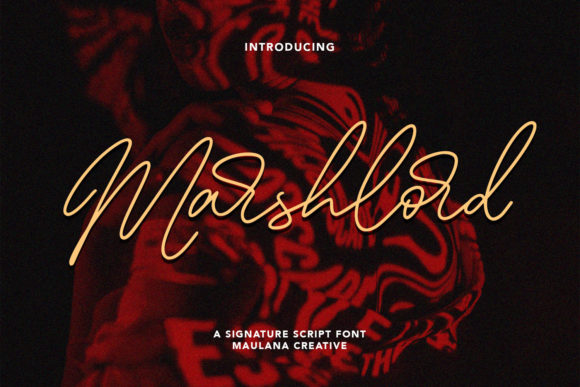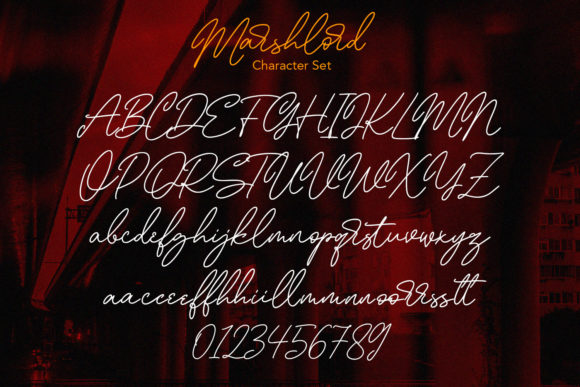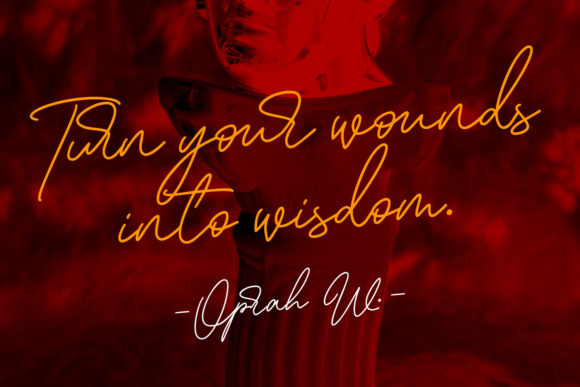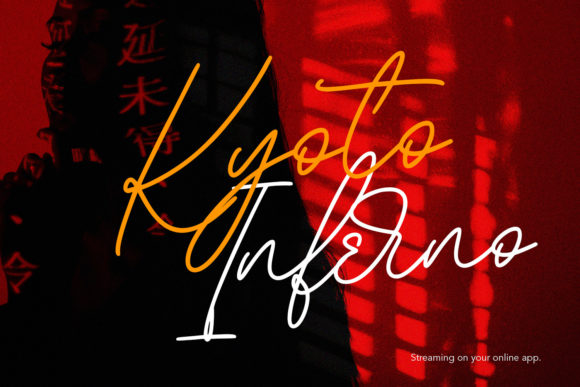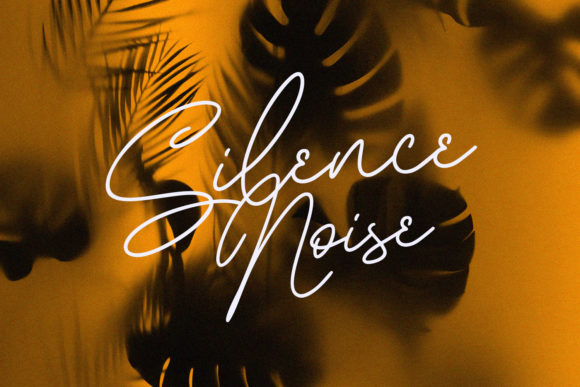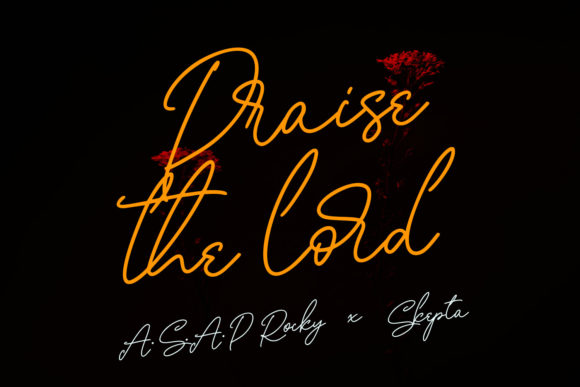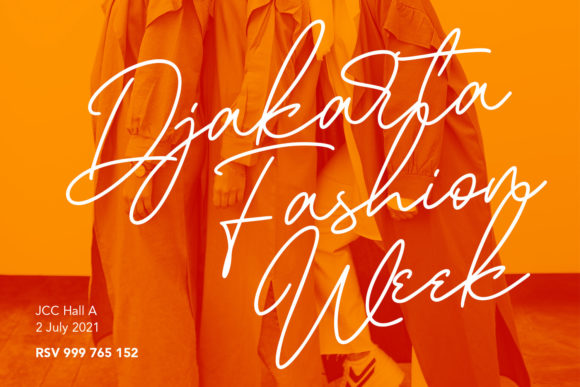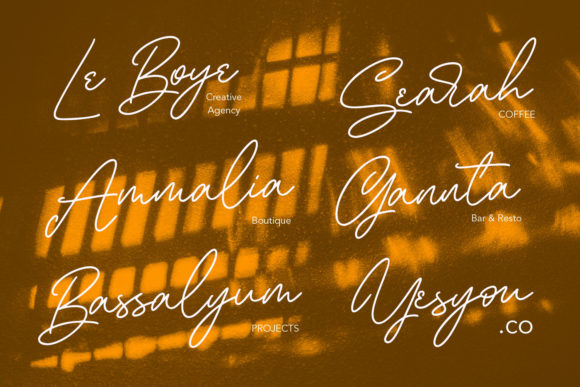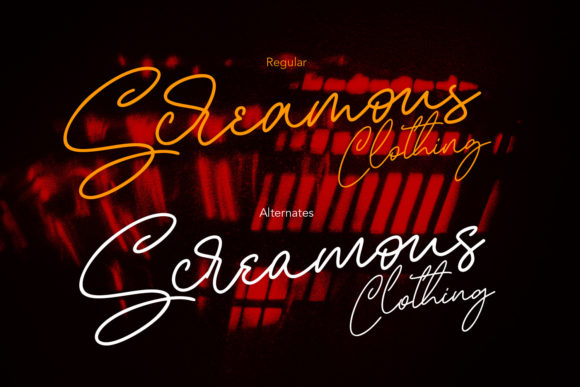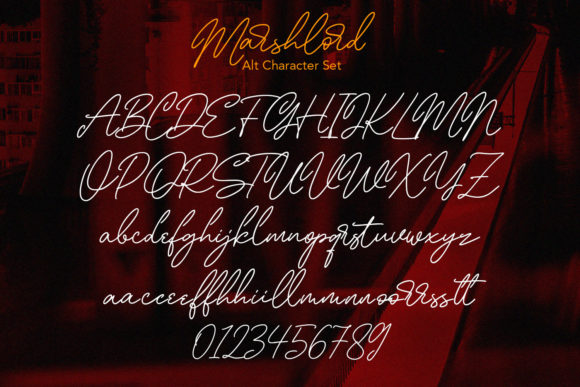
Marshlord Font
About Marshlord Font
Marshlord is an exquisite and refined script font that exudes elegance, sophistication, and a touch of modernity. Its beautiful and stylish design makes it a perfect choice for a wide range of design projects. Whether you’re creating logos, branding materials, invitations, stationery, wedding designs, social media posts, or any other creative project, Marshlord will add a touch of class and sophistication to your work.
With its carefully crafted letterforms, Marshlord captures attention and creates a sense of refined beauty. The smooth curves and elegant lines of this font make it ideal for creating a luxurious and upscale aesthetic. Whether you’re designing for a high-end brand or a special event, Marshlord will elevate your designs and leave a lasting impression.
The versatility of Marshlord is showcased through its stylish alternates and ligatures. These additional glyphs provide you with creative options to customize and enhance your designs, allowing you to create unique and personalized typography. Whether you’re looking to add swashes, flourishes, or decorative elements, Marshlord offers a variety of choices to make your designs truly stand out.
When it comes to branding and stationery, Marshlord adds a touch of sophistication and elegance. Its classy and modern aesthetic lends itself well to creating memorable visual identities and personalized stationery. Whether it’s a logo, business card, letterhead, or invitation, Marshlord will create a sense of professionalism and refinement.
For wedding designs and invitations, Marshlord brings a romantic and elegant vibe. Its flowing and graceful letterforms beautifully complement wedding themes and create a sense of sophistication and charm. From save-the-date cards to wedding invitations and signage, Marshlord will set the perfect tone for your special day.
Marshlord is also well-suited for social media posts and digital media. Its stylish and modern look grabs attention and adds a touch of elegance to your online presence. Whether you’re creating graphics for social media campaigns, blog headers, or website banners, Marshlord will make your visuals stand out and create a cohesive and sophisticated brand image.
In summary, Marshlord is a beautiful and refined script font that brings a classy, elegant, and modern look to your design projects. Its stylish alternates and ligatures offer creative possibilities, while its sophisticated and modern design makes it a perfect match for any project that seeks to convey a sense of luxury and elegance. Embrace the beauty of Marshlord and let it elevate your next creative endeavor.